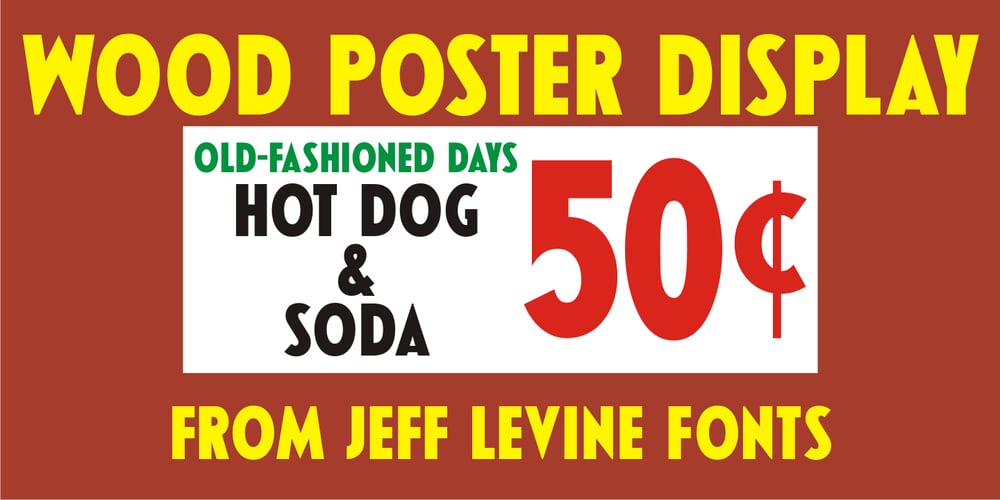
Wood Poster Display JNL
Wood Poster Display JNL Font Family was designed by Jeff Levine and published by Jeff Levine. Wood Poster Display JNL contains 1 styles and family package options. Wood Poster Display JNL is a more casual sans wood type, with a bold and friendly appeal. This font offers a pleasant design which lends itself perfectly to titling, price cards, event notices and any print or web design that prefers a less formal structure to its typography.